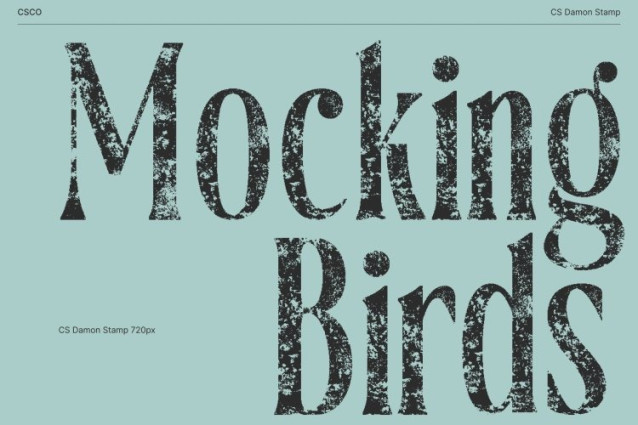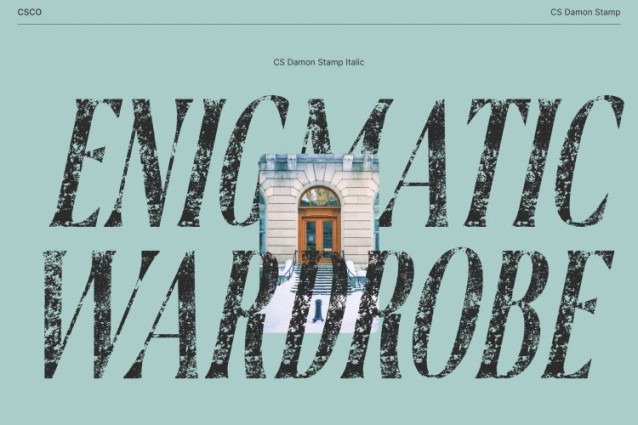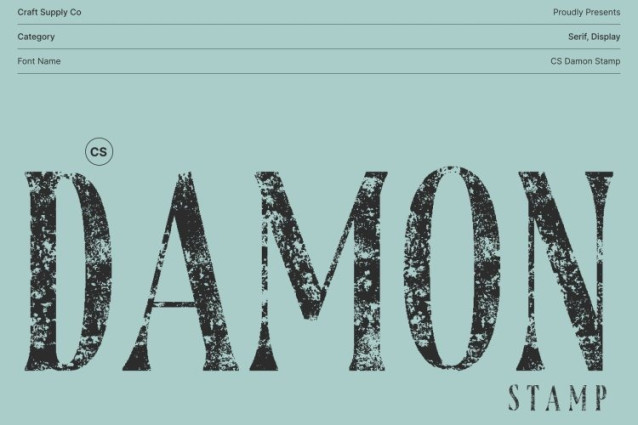
CS Damon Stamp Font
CS Damon Stamp Font This is a classic condensed serif font that blends timeless elegance with a space-efficient structure, enhanced by a distinctive stamp texture. Its narrow letterforms and refined serifs deliver a traditional, sophisticated look, while the stamped effect introduces an aged, handcrafted print character that adds depth and authenticity.
Timeless Style with Vintage Texture
Rooted in classic serif design, this is ideal for vintage-inspired projects and editorial layouts. The condensed proportions allow efficient use of space, while the stamp texture evokes old printing techniques, making the font feel warm, historical, and visually rich.
Perfect for Headlines, Invitations, and Heritage Design
Whether used for magazine headlines, elegant invitations, posters, or historical documents, this font brings refined character and classic charm. Its compact form ensures strong impact in limited space, while the textured finish enhances its traditional appeal.
A Classic Typeface with Practical Elegance
Choose this font to elevate your designs with timeless sophistication and expressive detail. Its fusion of condensed serif elegance and vintage stamp texture makes it a versatile choice for designers seeking tradition, character, and efficient typography.